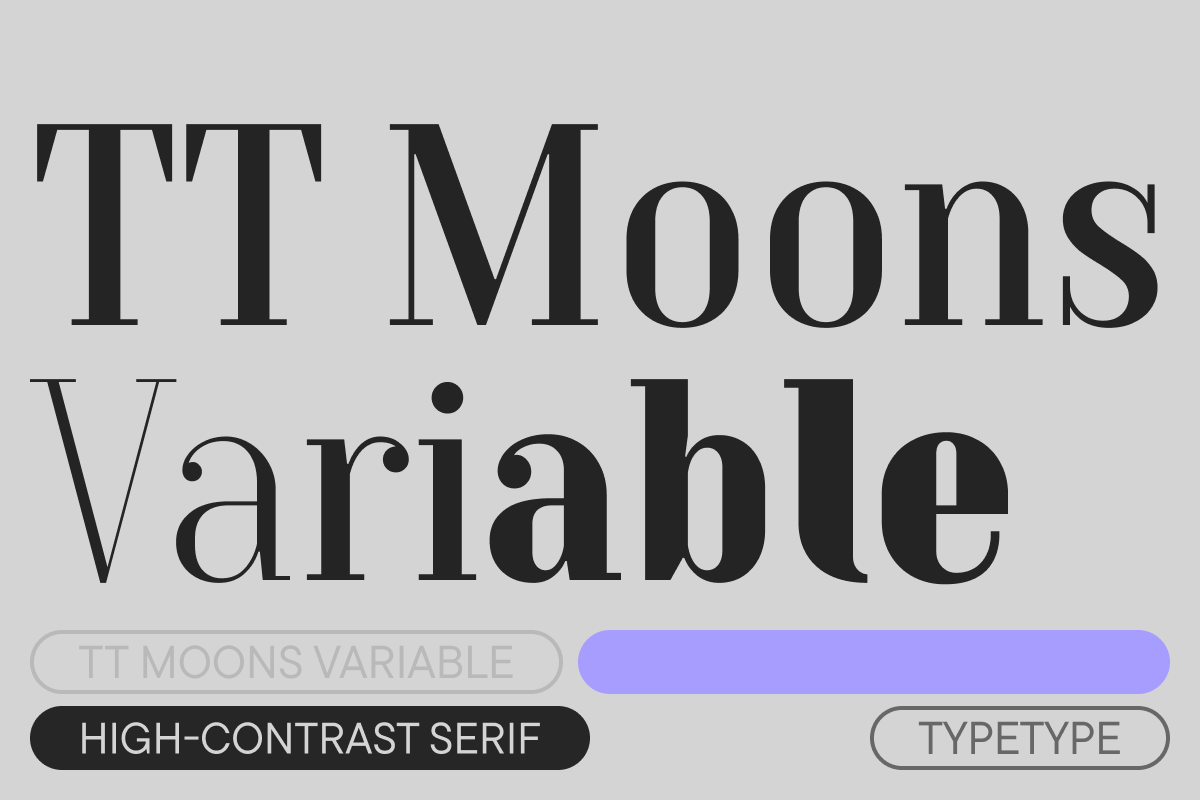
TT Moons VF Italic
TT Moons is an elegant modern serif typeface with narrow proportions, high contrast, and a harmonious rhythm. It combines traditional forms with contemporary details. Thanks to these features, the font’s design evokes classic aesthetics while also appearing fresh and current. TT Moons is ideal for typesetting magazines, books, and newspapers. This typeface performs best at large or medium sizes. The typeface is an excellent choice when you need to blend classic and contemporary aesthetics.